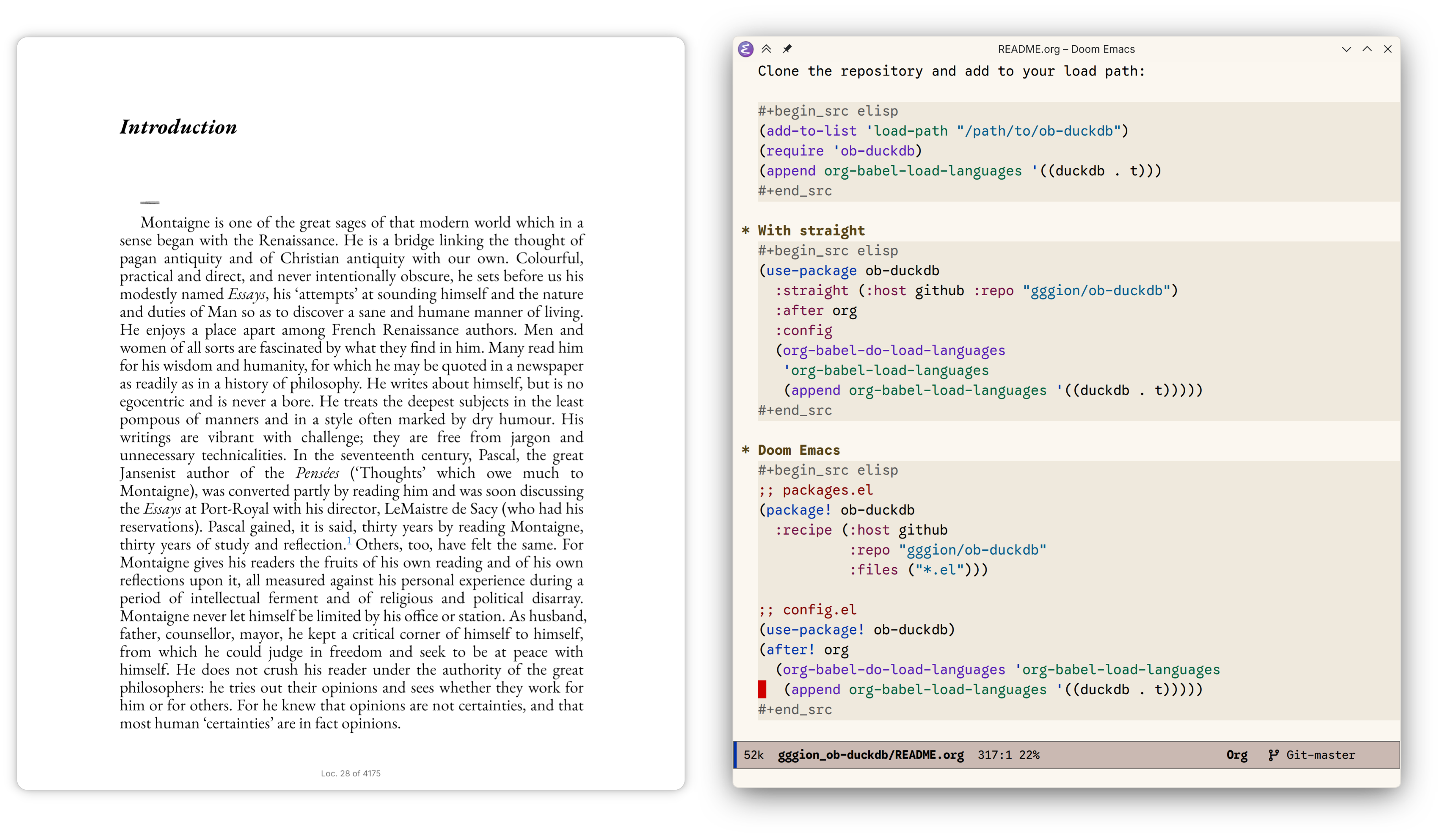
Most readable font ever, literally comfortaa that without looking like a troon design experimentJust wish it wouldn't be webshit first and had actual hinting instead of variable ttf coal
>>107240339>Hate reading books>Reading a single book would take me up to an entire year>Got a kindle>Jailbroke it>mfw scamazon's bookerly font fixed my reading habits>Read 17 books this yearI used to think that fonts were just a graphic design meme but goddamn, readability really does make a difference
>FONT THREADfor printing on paper? otherwise you need 24" 4K display or to zoom web pages.
>>107240339Garamond on paper.TBD on small screensIt depends on the projector for large screens but in general something sans serif.We have known all of this for decades
>>107240339>most readable>single story apic unrelated, my two favs right now
The older I get the more I realize that font choice rarely matters. A 4K monitor will always be better for clarity than a font crafted by the angels themselves on a shitty 1080p panel.
>>107245300I barely noticed you're honestly right I will edit it maybeBricolage is a little too blocky for me, I think I have dyslexia or something, those tight crotches also look like ass on cleartype which is the only way to use a webshit font as a ui font without bawling your eyes out
Although I prefer the cleaner look of MS Gothic, when doing QA for my translation projects, I almost always set the text to MS Mincho since at the size I usually use (12px), for some reason, it feels easier to catch mistakes during long sessions.
>>107241205Check out the other corpo's font it's slightly less fat and glyphs are more distinct amongst each other in my opinion
GNU Unifont
This is the entire book of Fellowship of the Ring, you will need to place your face very close to the screen
I like IBM Plex, because it has wide coverage, mono, sans, and serif, and I think it looks pretty nice.I like some other fonts too, but for my system I like being able to have everything consistent even across different forms. The only font I found with equivalent coverage was Noto, and I didn't like that as much.I also like being able to check my outputs are in the right font by looking for the double storey g.
>>107246627Noto Sans or Atkinson Hyperlegible are good choices for you then. Good distinguishable humanist typefaces that look good.
>>107252488I've been switching between this and atkinson for a while now, unrelated but fuck furryfox and modern webThere are three main ways of setting a font in a browser that I found: First cancer is lying to the DOM and rendering with user selected fonts, firefox does this when unchecked 'Allow pages to choose their own fonts...' BUT it has issues like that it for some unexplicable fucking reason applies to extensions (even popups) and that it cannot be managed per site.The second cancer is to use userstyles BUT we live in the market fetishistic world of today and unless you pretend to be the perfect replica ZOG drone you can be near unique and trackable anywhere you go by fonts alone so in order for the browser to preserve a semblance of privacy it has to restrict what fonts the javascript engine is allowed to see (usually stock windows fonts), this is of course CANCER because the fonts you installed are literally in the literal meaning of literally transcendent to the renderer rendering your hopes of setting a font in vain.The third cancer is the sketchiest one and it is basically a combination of denying remote fonts and denying local fonts thereby making the browser panic and fallback to whatever it can even if it violates the sites' css, this is of course CANCER because it's even less wieldy than the first one and I haven't actually been able to do this without sandboxing which is a shame because it's such a slimy niggerlicious hack it makes me smile.
I was recommended Ioveska and gruvbox color theme a few weeks ago after I made a similar thread. Very happy with it. End game setup.
>>107250785Ah damn you were faster. I was about to shill this one too.
>>107250539is that ttf or bitmap GNU Unifont?
Helvetica masterrace
>>107254902Tourist, if you want a good screen font that has that gay neo-grotesque look use SF Pro, or it's ripoff, Inter.i miss the lower DPI era where I could get away with Terminus everywhere.
>>107254986zoom in dumb faggot
>>107250580This is a cute idea but it's basically impossible to read
Caskaydia Cove is my go-to, though I really only use its mono fonts. I feel like a lot of "nerd" fonts can be rather obnoxious. Caskaydia minimizes that while still looking nice. Only real problem is that it lacks language support -- but who wants to real moonrunes anyway.
>>107249708>>107250785How do you make these pictures
>>107255115just gotta decode it
ttyp0
>>107250580Just zoom in nigga.
How do you approach font selection? Do you just make your website and then try out different fonts to choose what looks more stylish?
>>107255719>do you need a monospace font?no -> Comic Sans MSyes -> Comic Mono
>>107255594zoom it to 100% scaling nigga and look really close it's a subpixel font
>>107255197I took mine from the png preview of the svg used as the image on Wikipedia for IBM Plex.>>107253647Gotta be quick to advertise for big company for free. Sorry anon. :¬)Really though, it is a nice font. Glad you like it too.
>>107255719i test in my terminal emulator
>>107254867I remember when font threads were common here.
I like Berkeley Mono for monospace
>>107261152tryhard font
>>107255736always relevant
i like inter (sans serif) and times new roman (for serif) but i'll do some experimenting with more soon. my vision is shit so even the smallest of improvements would help a lot.
Mactype supremacy (please make it support windows title bars my chinese daddies)
Are there any font megapacks of say pre-1980 typefaces? I mean digital reconstructions of the fonts used in printed material. I don't want "inspired by" type things, I want an exact copy. My usecase is digitizing old children's books and having the font match.
It's EB Garamond and Google Sans Code for me.